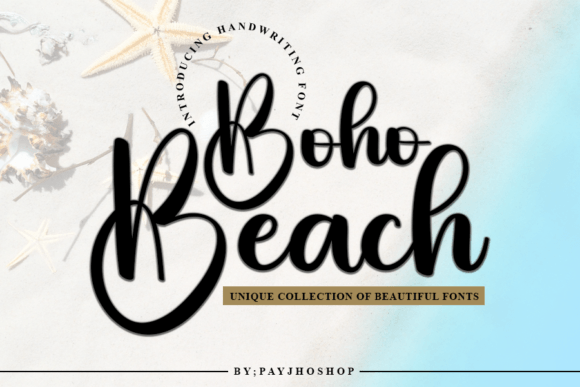
The Boho Beach Font: A Modern Handwritten Favorite
I’ll never forget the design project that led me to discover the Boho Beach font. I was working on a beach-themed greeting card, and I just couldn’t seem to find the perfect handwritten font to capture the laid-back, carefree vibe I was going for. That was until I stumbled upon Boho Beach – a cool and modern handwritten font that instantly became my go-to.
So, what makes Boho Beach so special? Let’s dive into the good stuff and a few quirks I’ve noticed.
- ✨ Unique and modern style: Boho Beach has a fresh, contemporary feel that’s perfect for a wide range of design projects.
- ✅ Highly versatile: Whether you’re designing crafts, digital graphics, presentations, or greeting cards, this font adapts seamlessly.
- 💫 Elegant yet casual: The font strikes a beautiful balance between sophistication and playfulness, making it suitable for both formal and informal designs.
While Boho Beach is an excellent font, there are a few minor things to keep in mind:
- 🤔 Legibility at small sizes: Like many handwritten fonts, Boho Beach can become a bit tricky to read at very small sizes. It’s best used at larger sizes (around 20-30pt or larger) for optimal readability.
- ⚠️ Limited formal use: Due to its casual, beachy vibe, Boho Beach might not be the best fit for very formal or traditional designs.
The Designer Inspiration Behind Boho Beach
While the true origins of Boho Beach might be a mystery, it’s easy to imagine a designer inspired by long walks on the beach, sun-kissed afternoons, and the carefree spirit of the coast. This font captures that laid-back essence, perfect for designers looking to infuse their work with a bit of beachy charm.
Q: Is Boho Beach suitable for body text?
A: While Boho Beach is beautiful, it’s best used for headings or short paragraphs due to its decorative nature. For longer body text, a more traditional font might be more readable.
Q: How does Boho Beach compare to other handwritten fonts?
A: Boho Beach stands out with its modern, elegant yet casual style. It’s more refined than some handwritten fonts but still retains a friendly, approachable vibe.